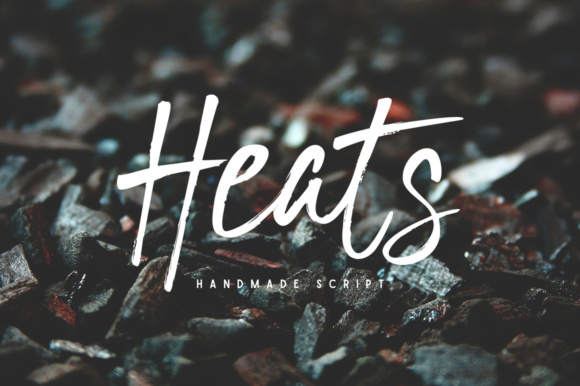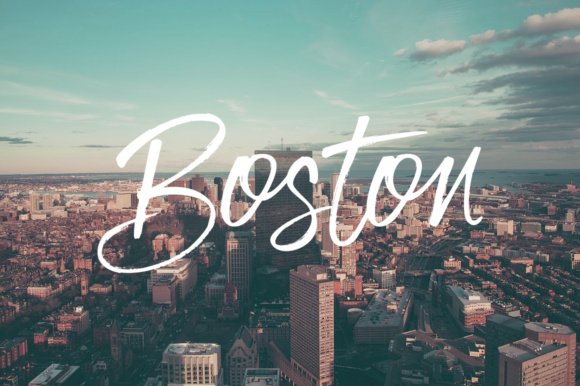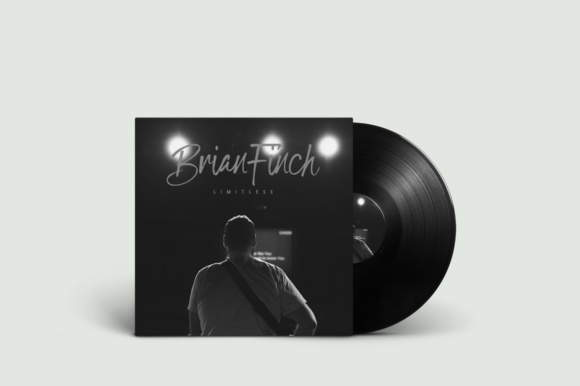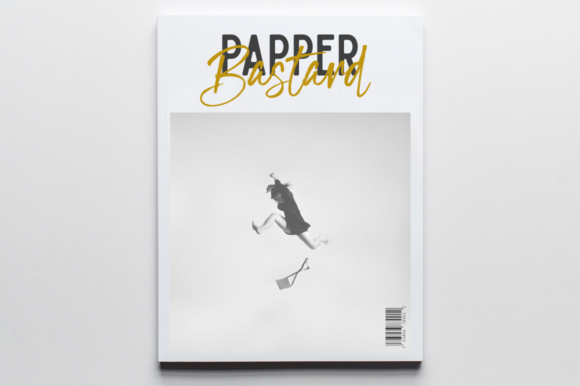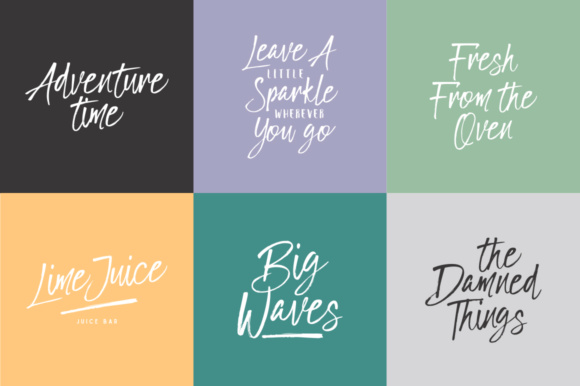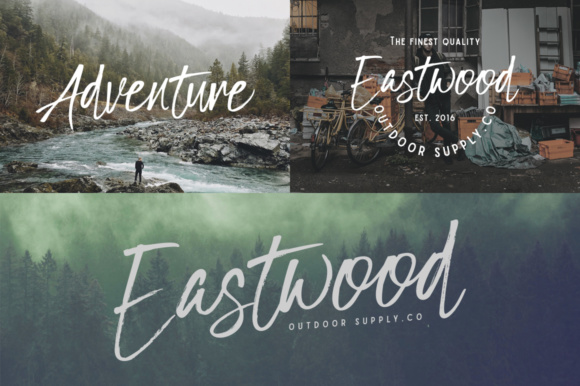
Heats Font
About Heats Font
Heats is a hand brushed script with cool characters! It has a unique look which makes it perfect for advertising, poster designs, book covers, magazines, and every other design that needs a unique and striking look.